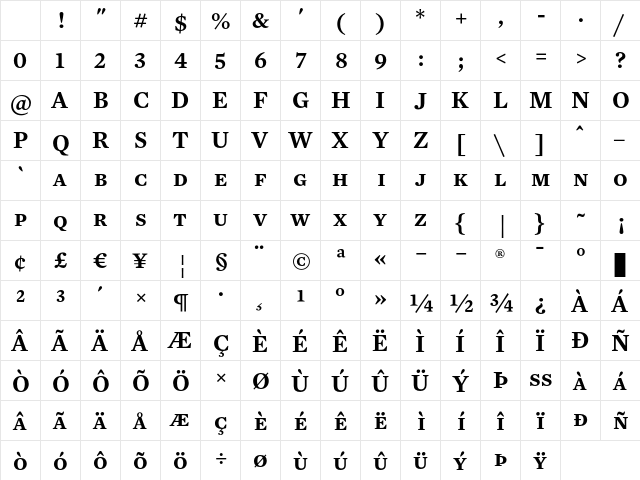
Complete Mercury Text G1 Semibold SC glyph index. Displaying only characters natively supported by Mercury Text G1 Semibold SC font.
Mercury Text G1 is a composed and adaptable typeface that performs quietly and consistently across a wide range of design contexts. Its bold stroke weight gives it real presence on the page.